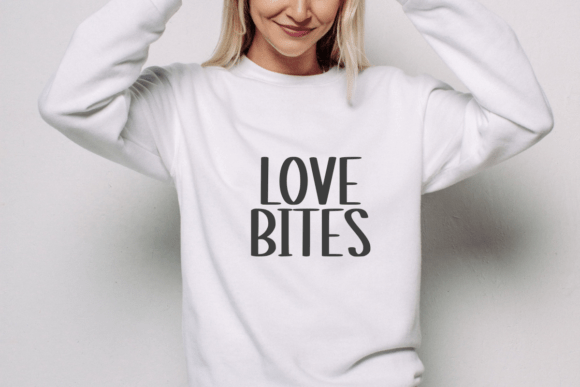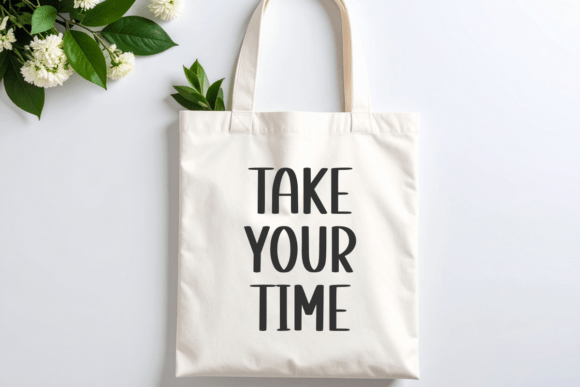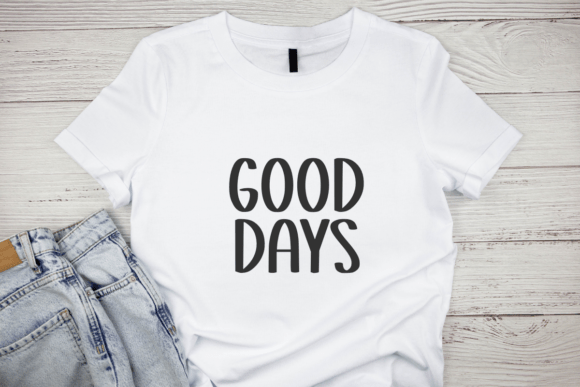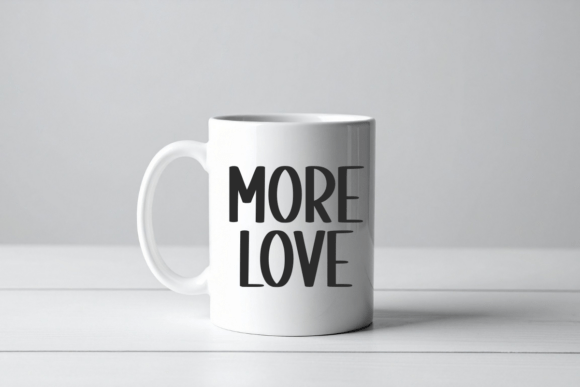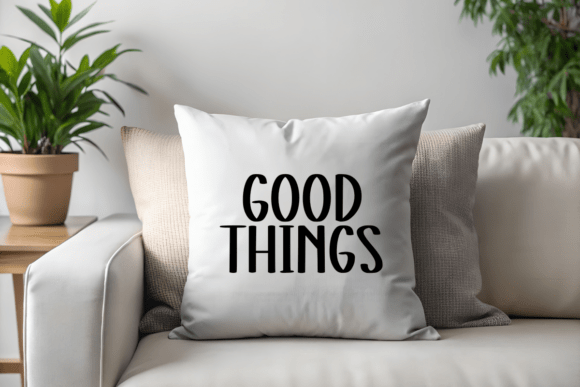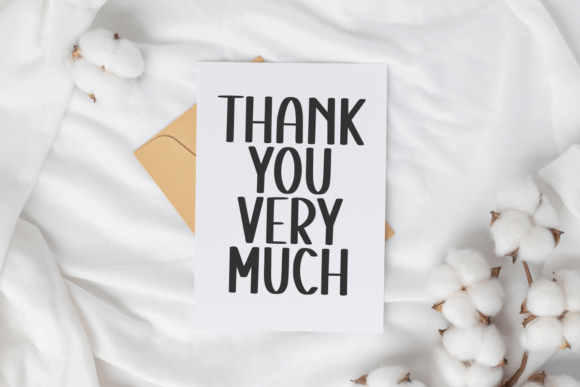
The Careful Mapping Font: A Delightful Handwriting Display Font for Creative Projects
Have you ever been in the middle of a design project, and suddenly, you’re stuck on finding the perfect font? I recall a recent experience where I was working on a branding project for a handmade goods client, and I just couldn’t find a font that conveyed the right balance of neatness and hand-drawn charm. That’s when I discovered the Careful Mapping font from Nuhatype, and it completely transformed my design.
A First Impression: What Makes Careful Mapping Special
Careful Mapping is a delightful and highly legible, cute handwriting display font that has quickly become a favorite in my design toolkit. Its tall, slightly condensed structure and consistent, rounded strokes strike the perfect balance between neatness and a genuine, hand-drawn feel. This font is perfect for teacher resources, organizational charts, branding for handmade goods, personal blogs, and any design that needs a clean, sweet, and comforting aesthetic that feels intentionally crafted.
- ✨ High legibility: The font’s clear and consistent strokes make it easy to read, even at smaller sizes.
- ✅ Versatility: Careful Mapping works well for a wide range of design projects, from educational materials to branding and personal blogs.
- 💕 Charming aesthetic: The font’s hand-drawn feel and rounded strokes give it a warm and comforting personality.
- 🎉 Ease of use: The font is easy to work with, and its OpenType features make it simple to customize.
- 🤔 Limited character set: While the font has a wide range of characters, it may not have every special character or glyph you need.
- ⚠️ Not suitable for body text: Careful Mapping is best used for display purposes or headings, as it may not be suitable for longer blocks of text.
The Designer Inspiration Behind Careful Mapping
Nuhatype, the creator of Careful Mapping, is a design studio that focuses on creating beautiful, functional fonts for creative projects. The studio’s goal is to provide designers with high-quality fonts that inspire and empower them to create amazing work.
Q: What is Careful Mapping font best used for?
A: Careful Mapping is best used for display purposes, such as headings, titles, and labels, where a clear, charming aesthetic is desired.
Q: Is Careful Mapping suitable for body text?
A: No, Careful Mapping is not suitable for body text, as it may be too decorative and difficult to read in longer blocks of text.